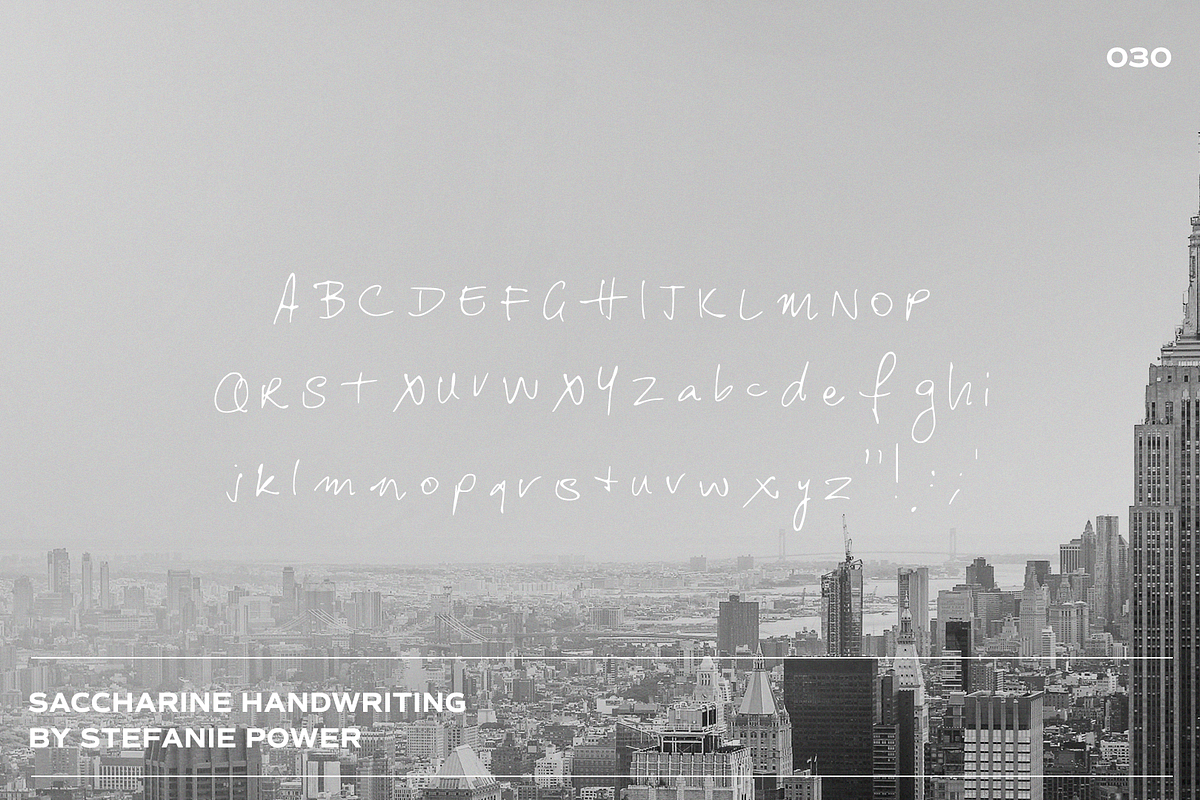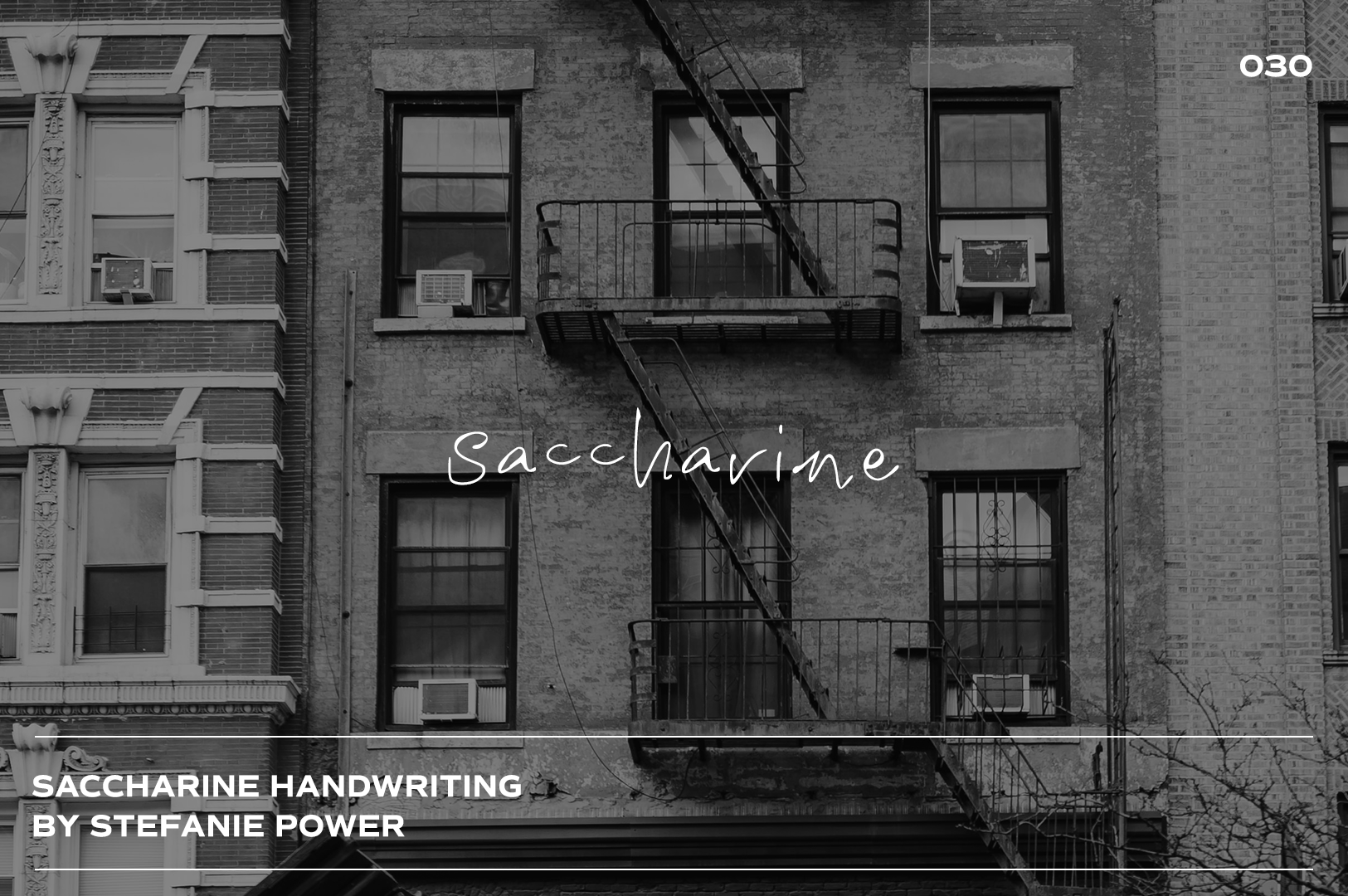
Saccharine Handwriting | Font
Introducing 'Saccharine' - a bold and scratchy font.
Saccharine • A handwritten script font containing upper & lowercase characters and a range of punctuation and numbers.